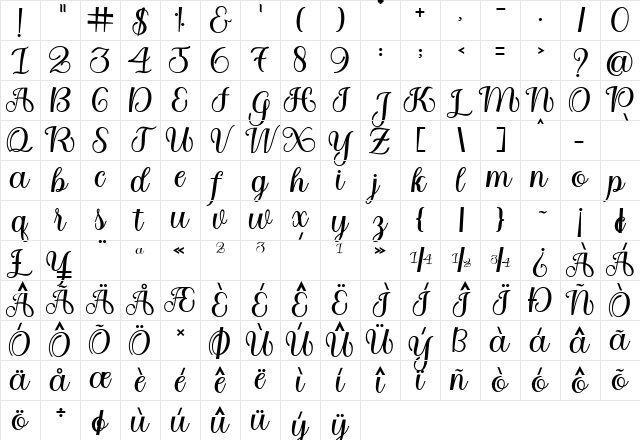
Baby sweet Regular Free Font
Baby sweet Regular
Foundry: NK Studio
Designer: Nurul kamal
Design Context for Baby sweet
Baby sweet is a composed and adaptable typeface that performs quietly and consistently across a wide range of design contexts.
Pro Tip: Use Baby sweet in both headline and body roles to test its range before committing to a single application.